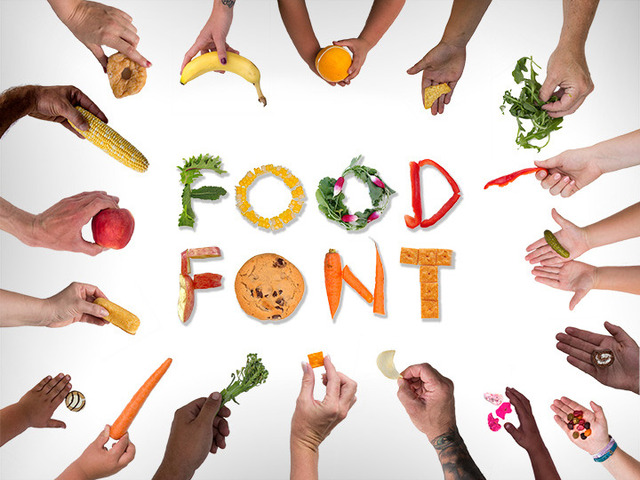
Play and write with your food! A community art project where you make food alphabets and use them in an interactive design tool.
The Food Font interactive tool is in the works, over 15 food alphabets have been made so far, and you can make your own food alphabets and upload the pictures to the site!
What is Food Font?
Food Font is an interactive art project where people can make alphabets out of food, take pictures of each letter, and later use these and other food alphabets in a fun, free, interactive online design tool. The project supports dialogue and builds community around food, health, and sustainability. It is also fun to make food alphabets and to make images that you can save, print, and share.  So why not play and write with your food?
How do the Food Font Alphabet Making activities work?
A group of individuals work together to make an alphabet out of food. Each letter is photographed and later prepared and uploaded to the Food Font website.   The person submitting the alphabet will also submit a name, location information, and tags for each food alphabet.  Each alphabet submitted will be loaded into the Food Font design tool.
How does the Food Font design tool work?
The interactive design tool will be available to use on the Food Font website. With the tool, you can write with various food alphabets, choose backgrounds, and do basic layout techniques to make images that can be saved, shared electronically, and also printed on your own printer.  The tool can be used to make images, posters, signs, and other printed materials.  You can also post what you make on the creation in the Food Font gallery which will be on the main page of the Food Font website.
You will be able to use any food alphabets that you made as well as any others submitted to the tool. Background images also will be submitted for use in the tool.
Who is this project for?
It is designed for use by a variety of groups including you with your friends and family, farmer’s markets, teachers and students in the classroom, community gardens, chefs and restaurants, and people who have a passion for food.  It is a fun, creative activity that anyone can do of any age, and in any size group.
Why are you doing this project?
I am an artist and an Associate Professor at the Cleveland Institute of Art. For several years I have been doing projects that explore food and sustainability. I was doing work in my studio where I was photographing words and letters out of food and reading books about the future of our food system, issues about food access and equity, and the local food movement.  I realized that the process I was doing in my studio had potential to be fun and an interactive way to promote discussion and build community around food.  The tools I was using to make my images can be difficult to use and are not accessible to everyone.  I wanted to create support materials and an easy-to-use interactive design tool to support awareness and discussion about food, sustainability, and health.
What Resources support organizing a Food Font activity or event?
On the Food Font website there are a number of materials that support organizing and doing a Food Font event. These include a photograph tip sheet, an alphabet checklist, lesson plans for teachers, and promotional materials that you can download and print.
What are the alphabets made of?
The food alphabets can be made out of any kind of food that you want. A set of letters could be made out of one kind of food, or several types/variety of food.
Some examples could be an alphabet made of:
- Kale
- Vegetables grown in a community or school garden
- French fries
- A locally grown in-season ingredient
- A restaurant’s food
- A city's food trucks
- Your dinner
- Your mom’s meatloaf
- Any food you want!
What are the project’s goals and mission?
The project has several goals which include:
- to support awareness and education about food and health
- to support the development of local community, collective creative activities,  and in-person real world group interaction
- to provide a free and easy-to-use design creation and publishing tool to support interaction and communication about food
- to support the efforts and promotion of the local food movement including farmers markets, community gardens, and other groups
- to inspire individuals to think more about food and health
- to create dialogue and awareness about food
Why are you doing a Kickstarter?
As an artist and designer, I am able to do most of the development of the project. However, I am not a programmer and I am seeking support to pay a developer/programmer that I will work with to develop the Food Font interactive tool.
I also am working with some teachers and community members to develop resource materials. I would like to pay them for their time in helping to create worksheets, lesson plans, and resources that will be useful and helpful in facilitating Food Font activities.